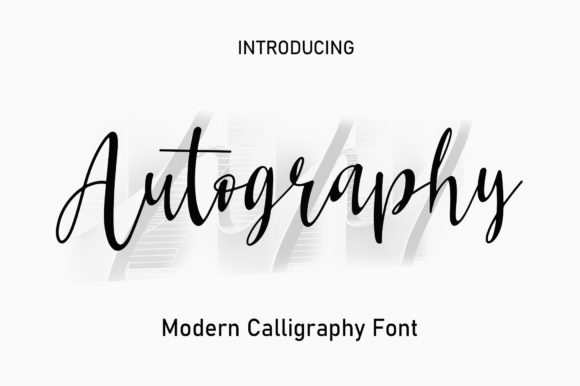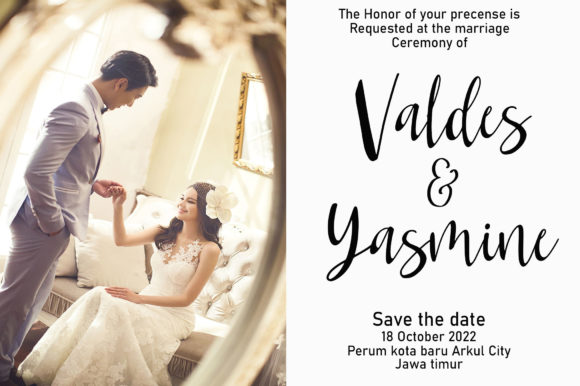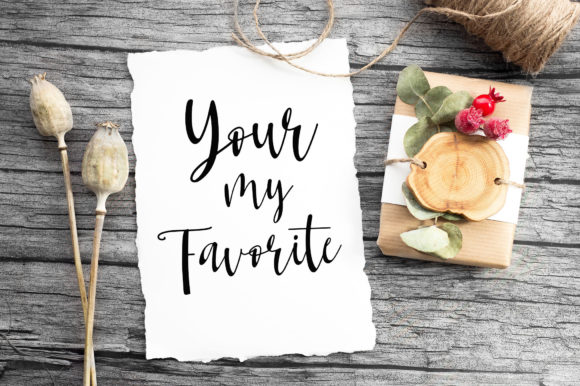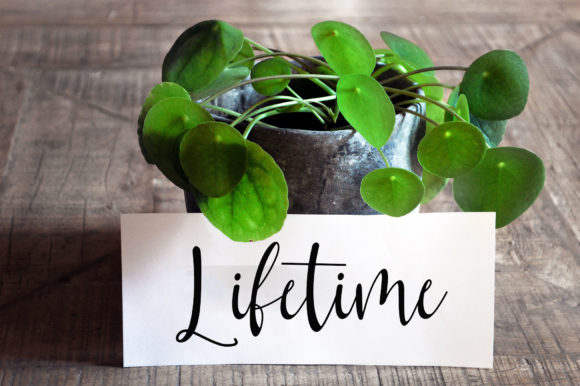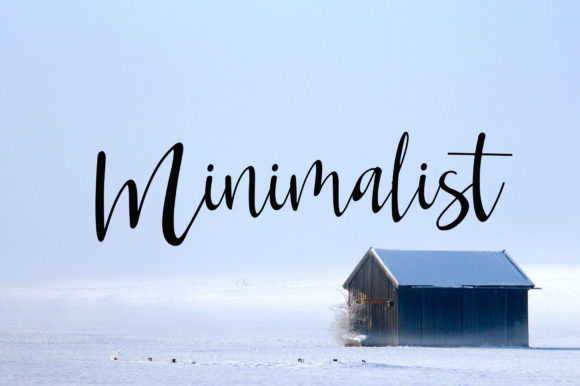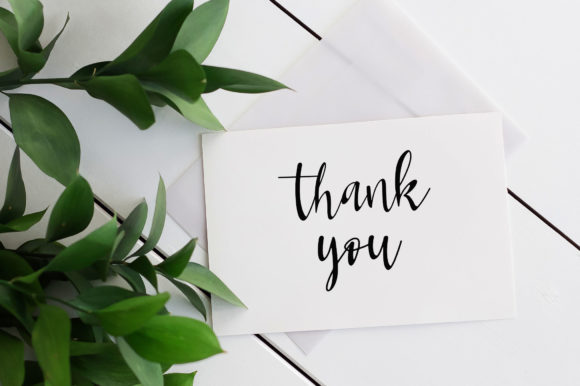
Autography Font
About Autography Font
Autography is a romantic and sweet calligraphy typeface with characters that dance along the baseline. It will add a luxury spark to any design project that you wish to create!